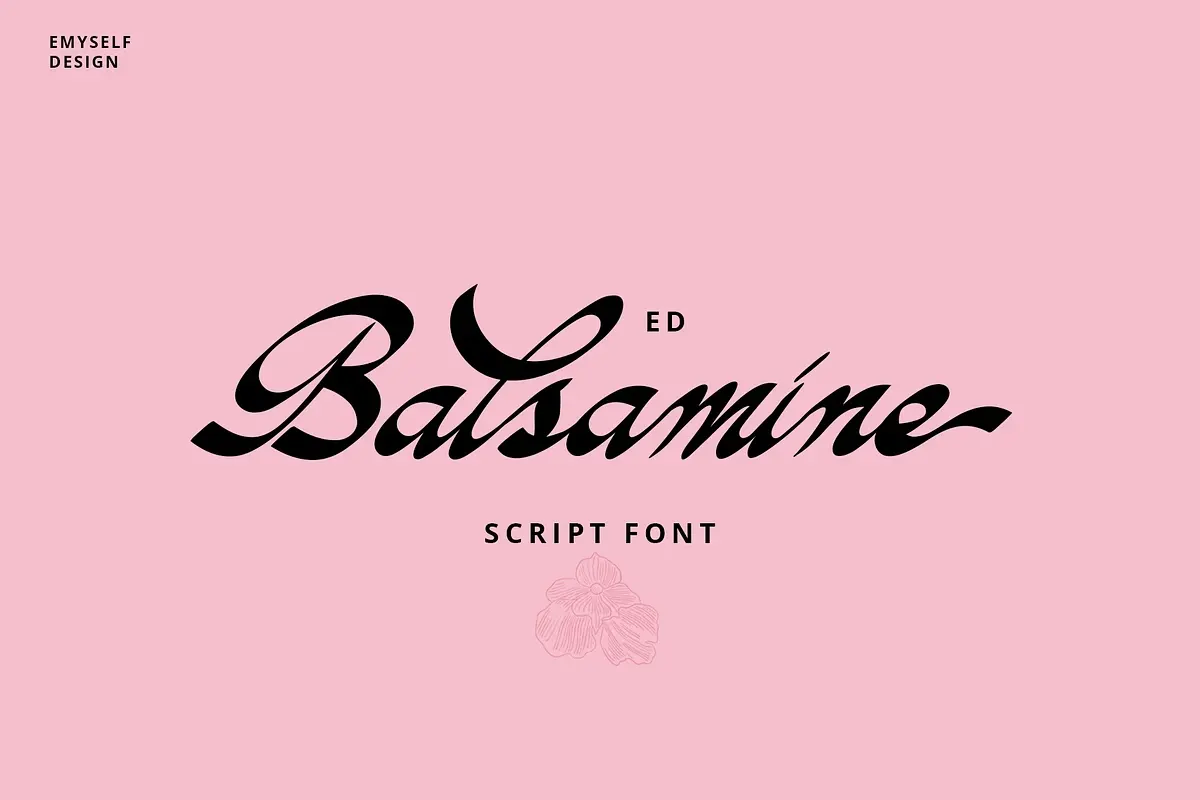
ED Balsamine Script Font Free Download is an elegant and flowing typeface that brings sophistication and charm to any project. With its graceful curves, smooth strokes, and natural handwritten feel, this script font is perfect for wedding invitations, branding, social media graphics, logos, and anything that needs a personalized, artistic touch.
Whether you're crafting romantic designs, luxury branding, or stylish stationery, ED Balsamine brings a timeless, elegant touch to your typography. It’s the perfect choice for designers looking to create beautiful, flowing text with personality and grace.